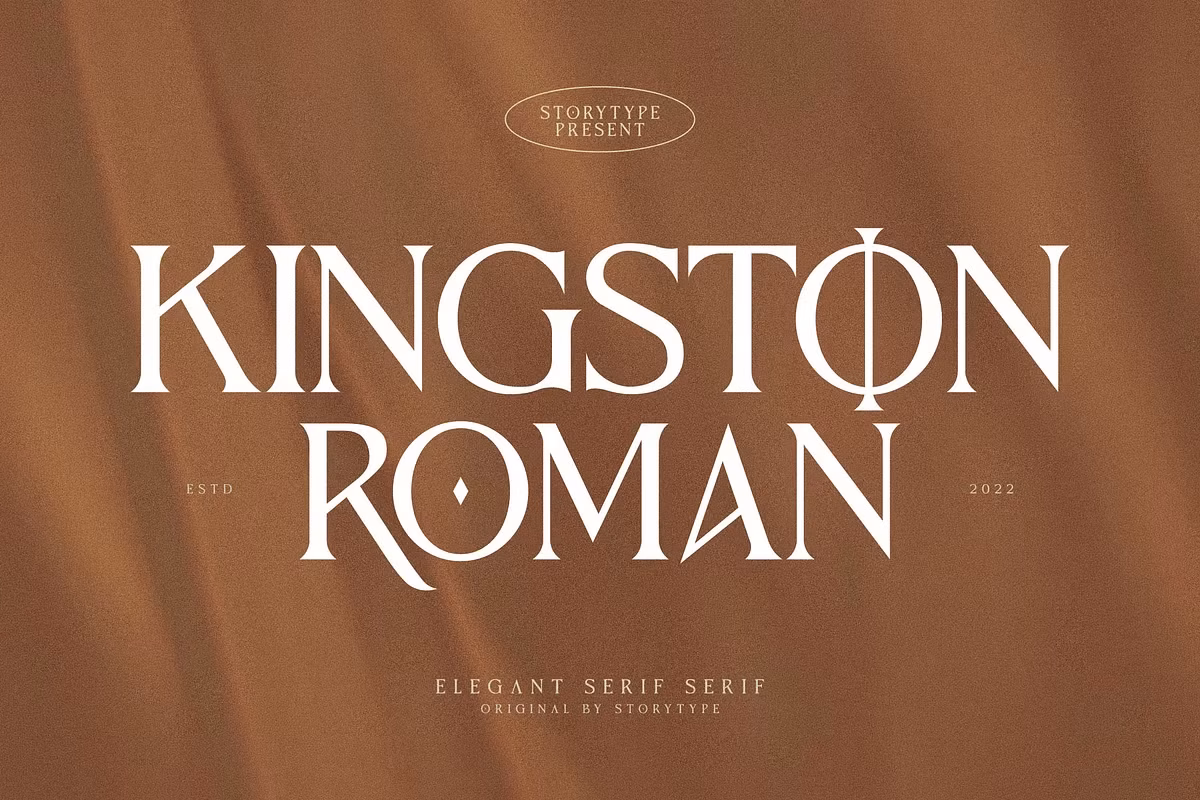
Kingston Roman Elegant Serif Font Free Download is a refined and stylish serif typeface that combines classic serif features with an elegant, modern twist. Its high contrast, clean lines, and sophisticated proportions make it perfect for luxury branding, editorial layouts, website designs, invitations, and any project that demands a touch of elegance.
The Kingston Roman font offers a timeless aesthetic that works well in both large headlines and smaller text, ensuring readability while maintaining an upscale, professional appearance. Whether you're creating a brand identity, print materials, or sophisticated digital content, this font provides a polished and elegant solution.
Elevate your design projects with Kingston Roman Elegant Serif Font Free Download, and create typography that exudes professionalism and refined style. Perfect for designers looking for a classic yet modern serif font.